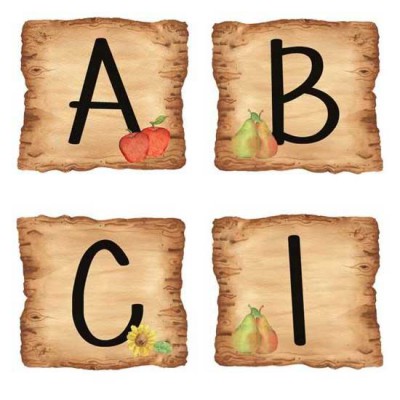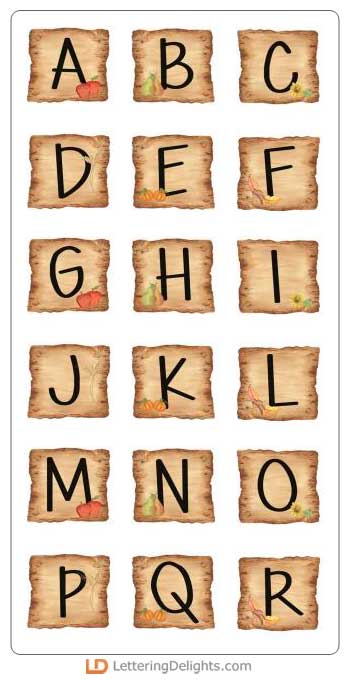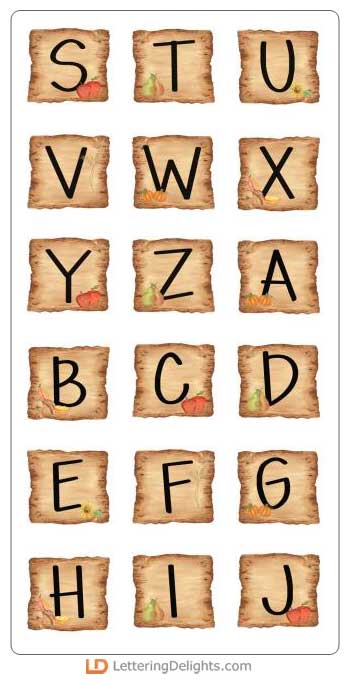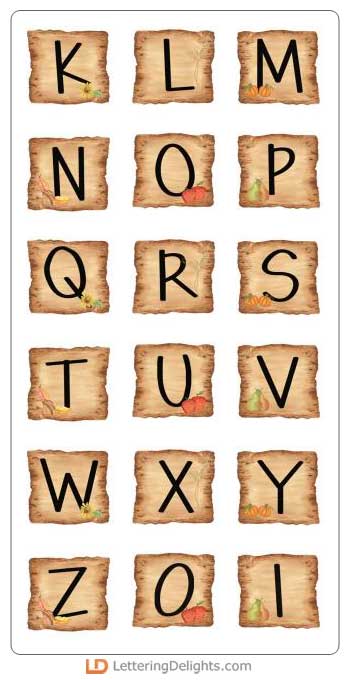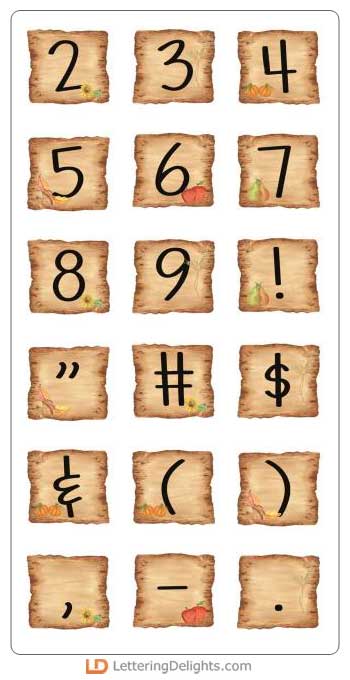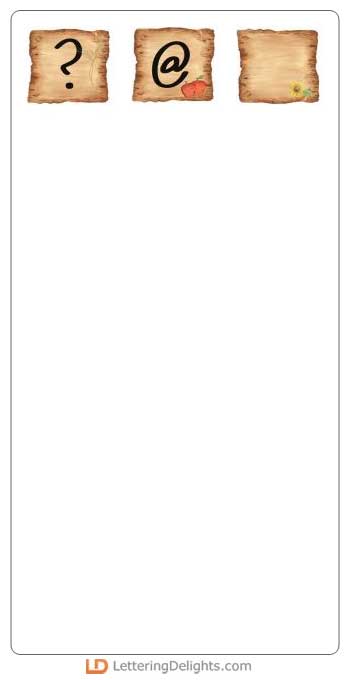
Straight from the garden, this unique alphabet will give a crafty handmade look to your paper creations as a scrapbook page title, teacher appreciation greeting card, or bulletin board lettering. Better yet, print them and attach the words to spikes to mark your vegetable garden.